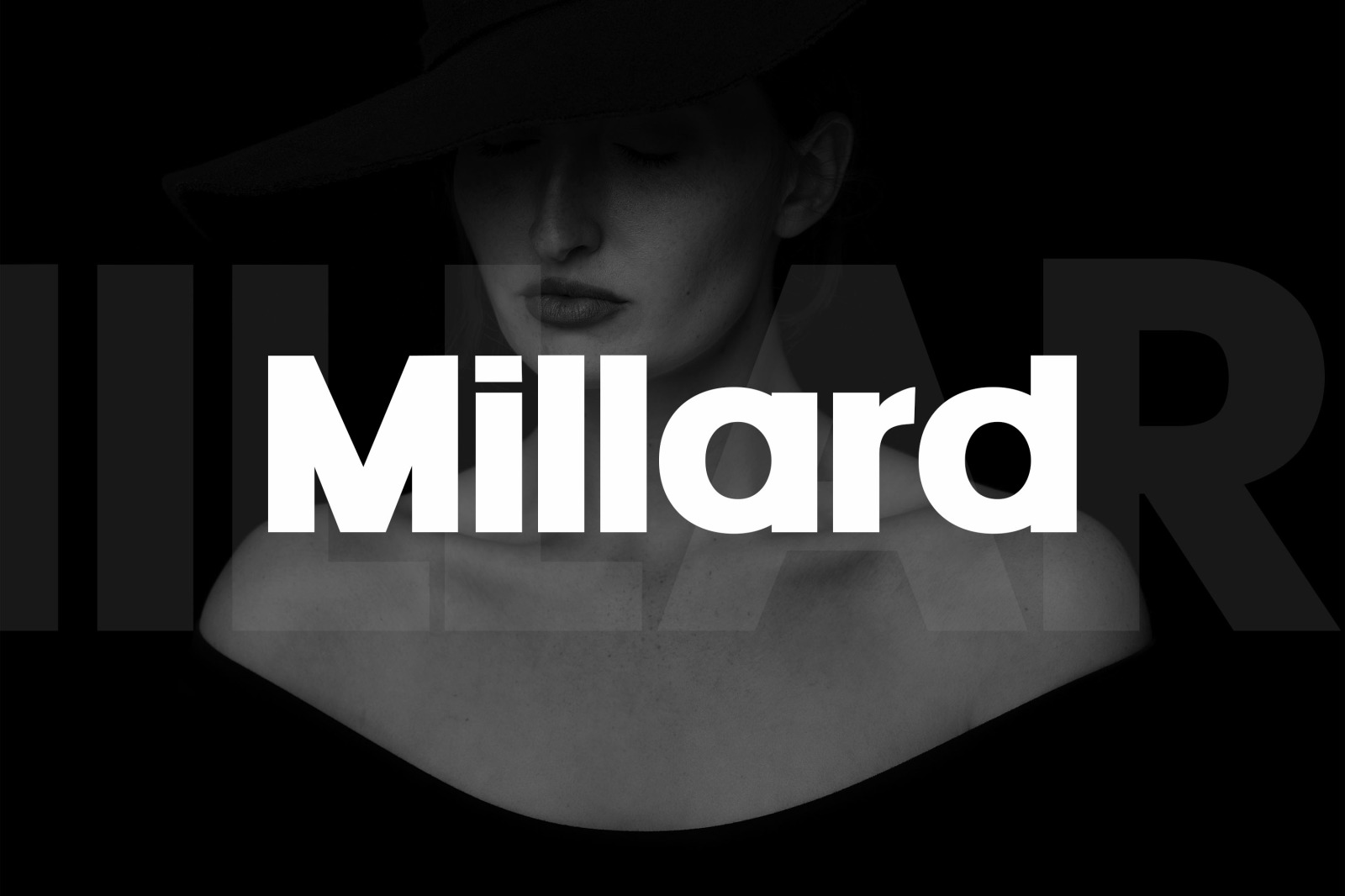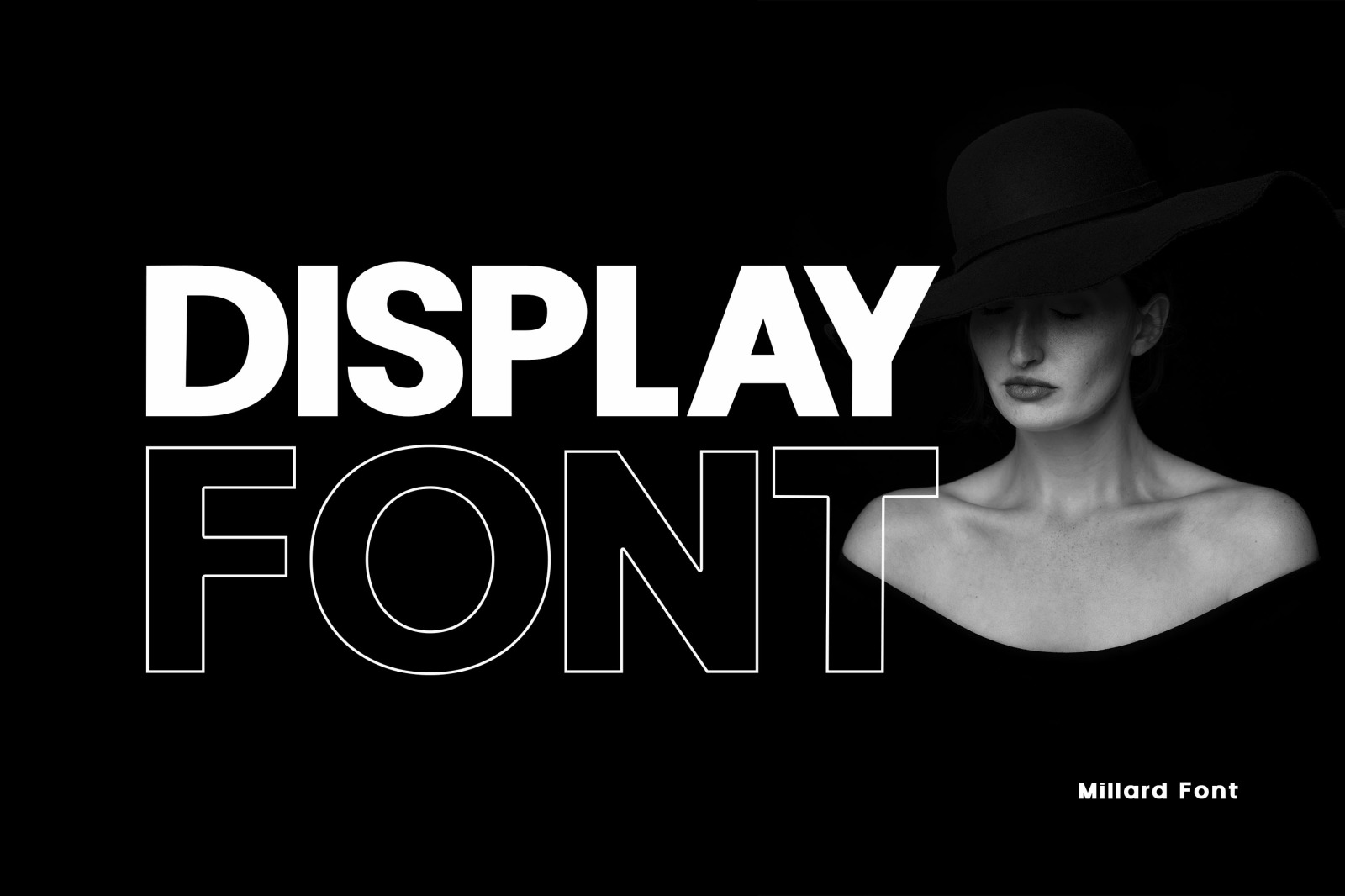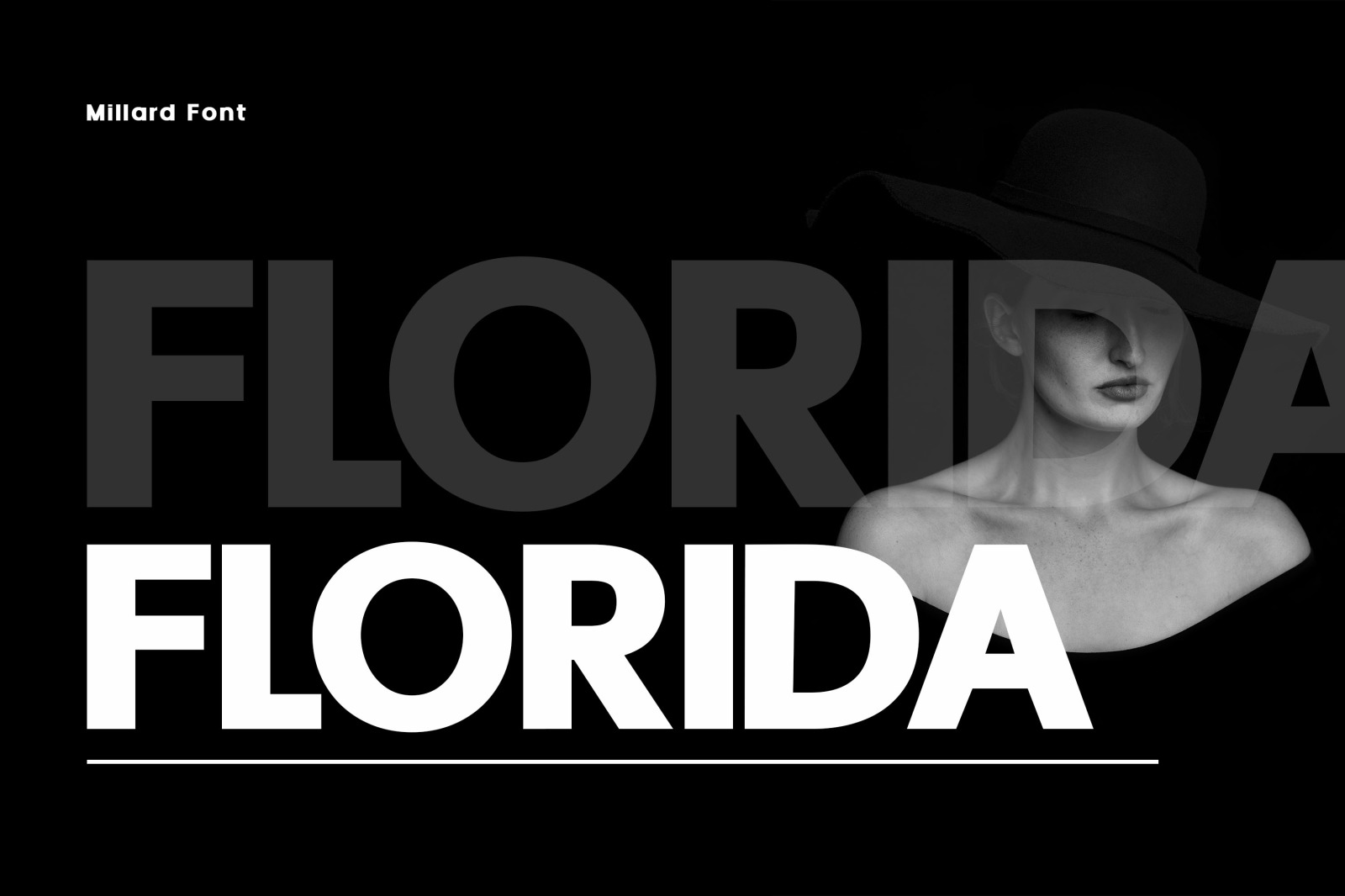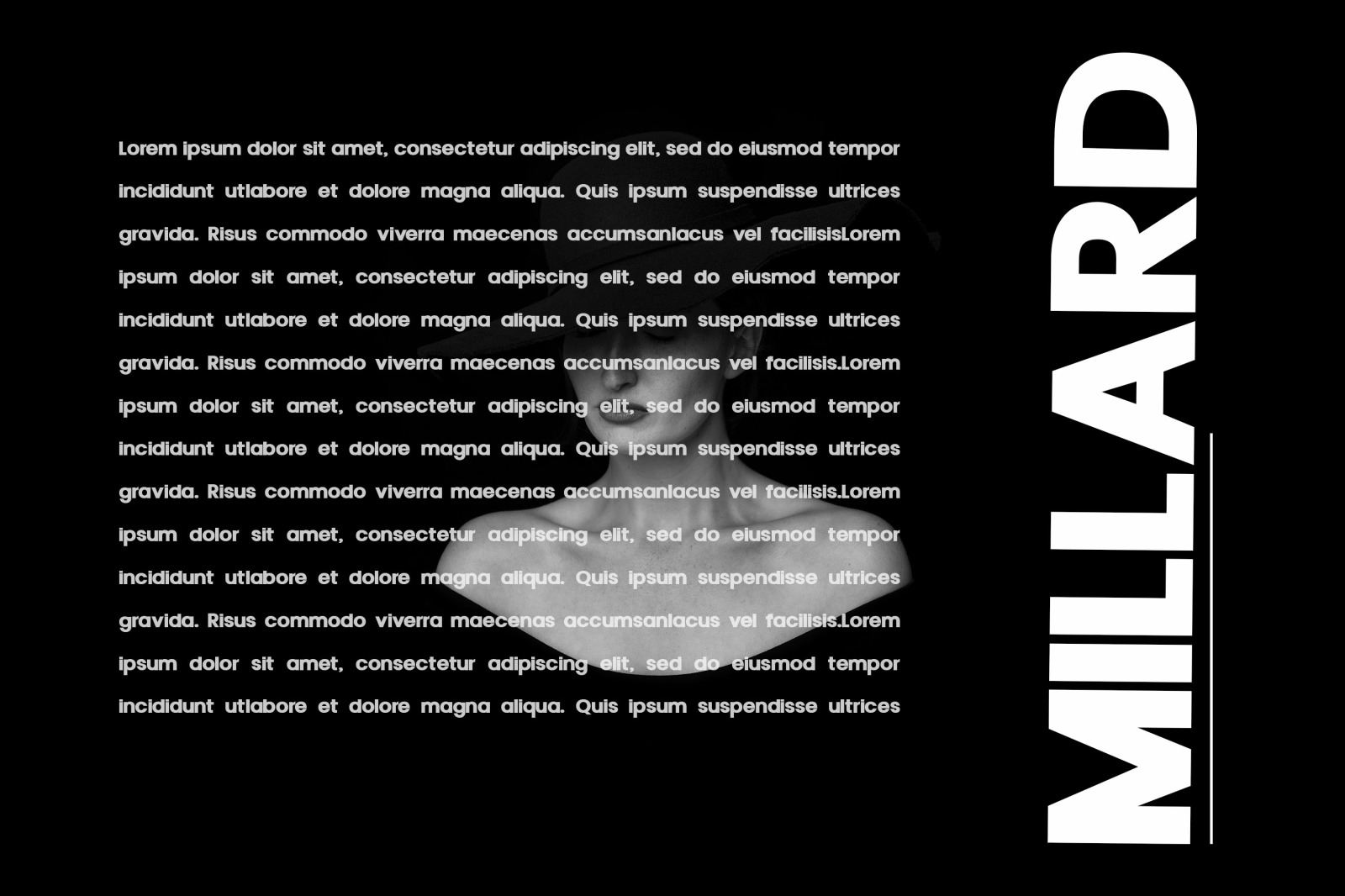
Millard Font
Millard is a minimal and elegant sans serif font. This font is very versatile and work great in large and small sizes. Millard Font will be great for any projects like branding, logo, stationery, business card, signage, flyer, brochure etc.